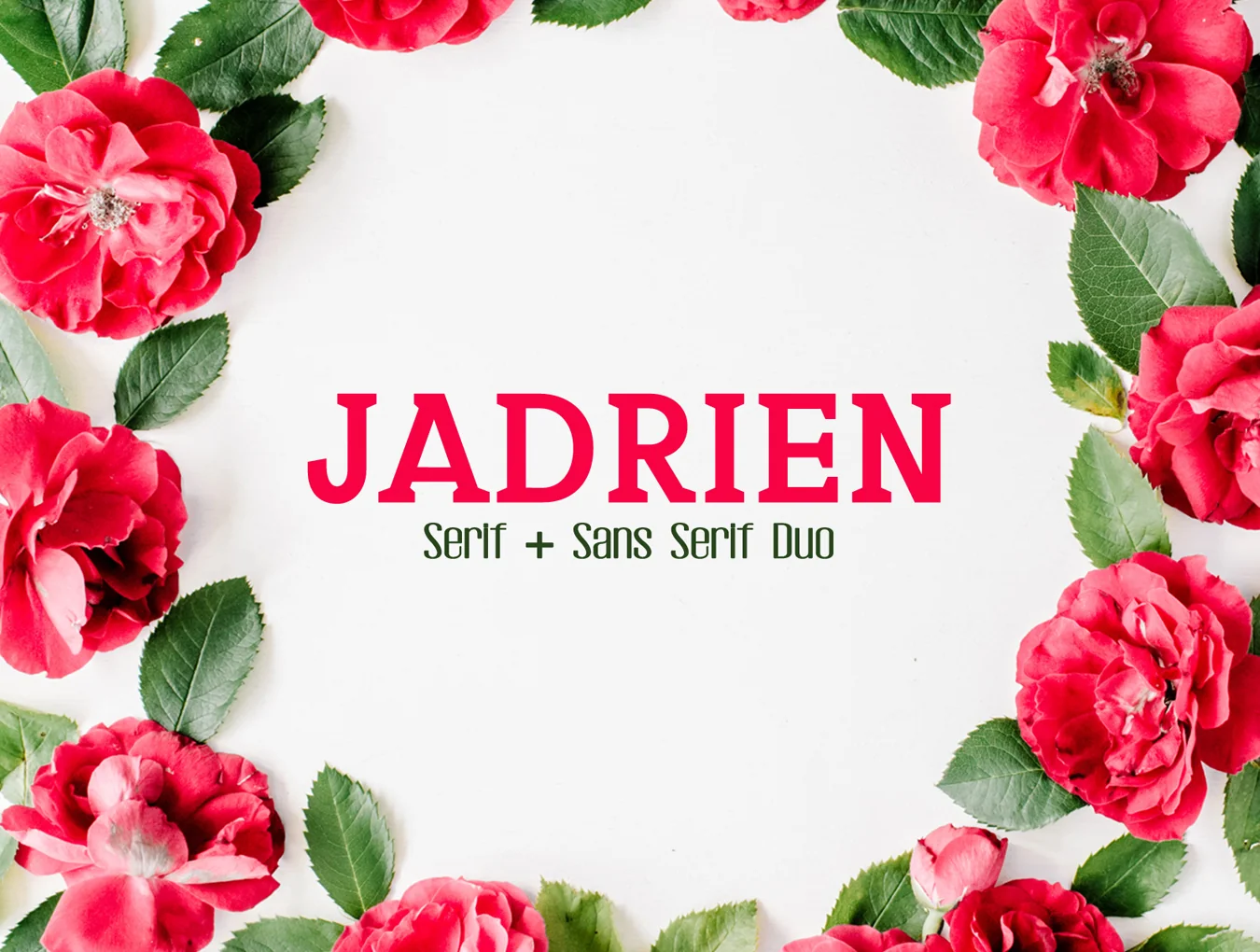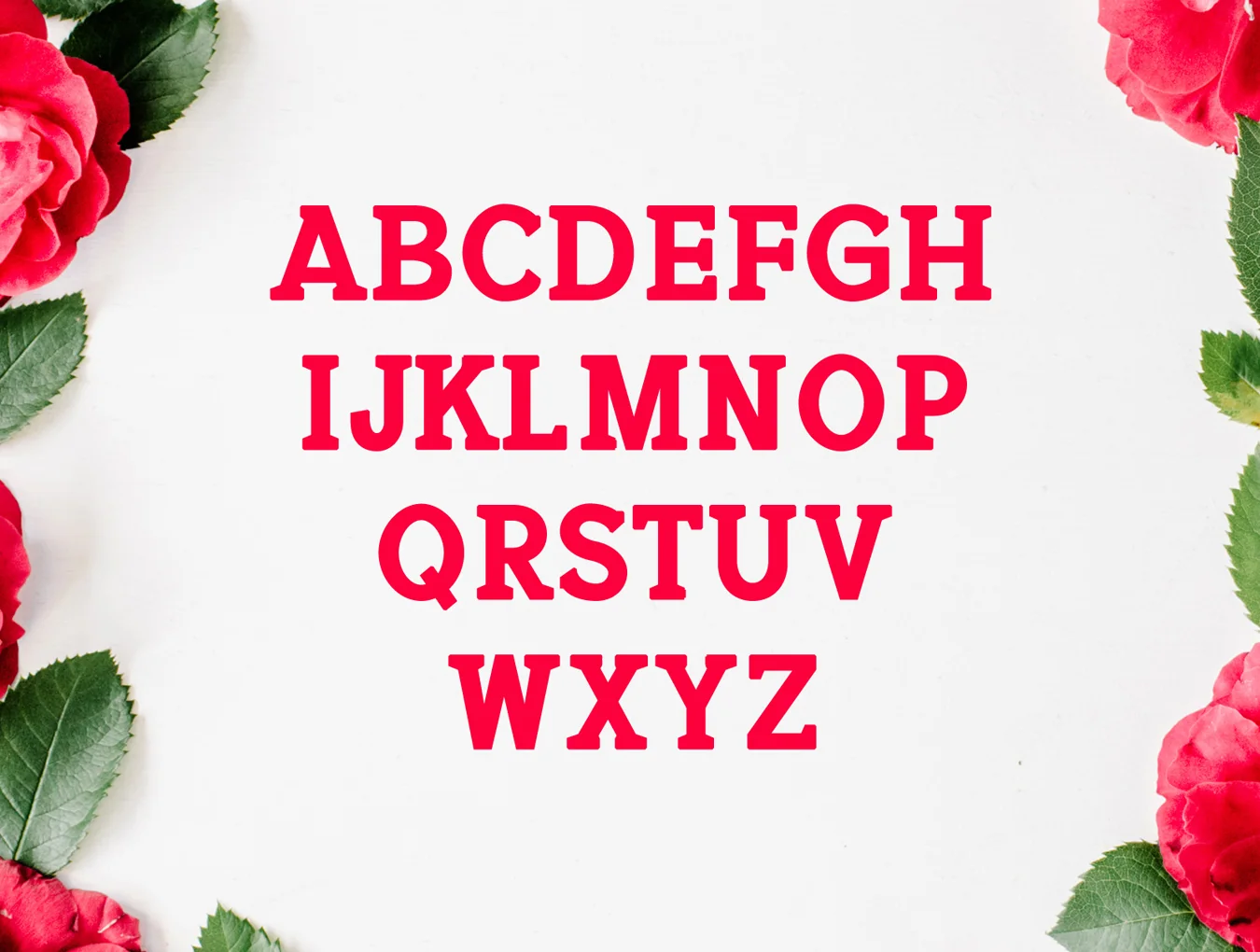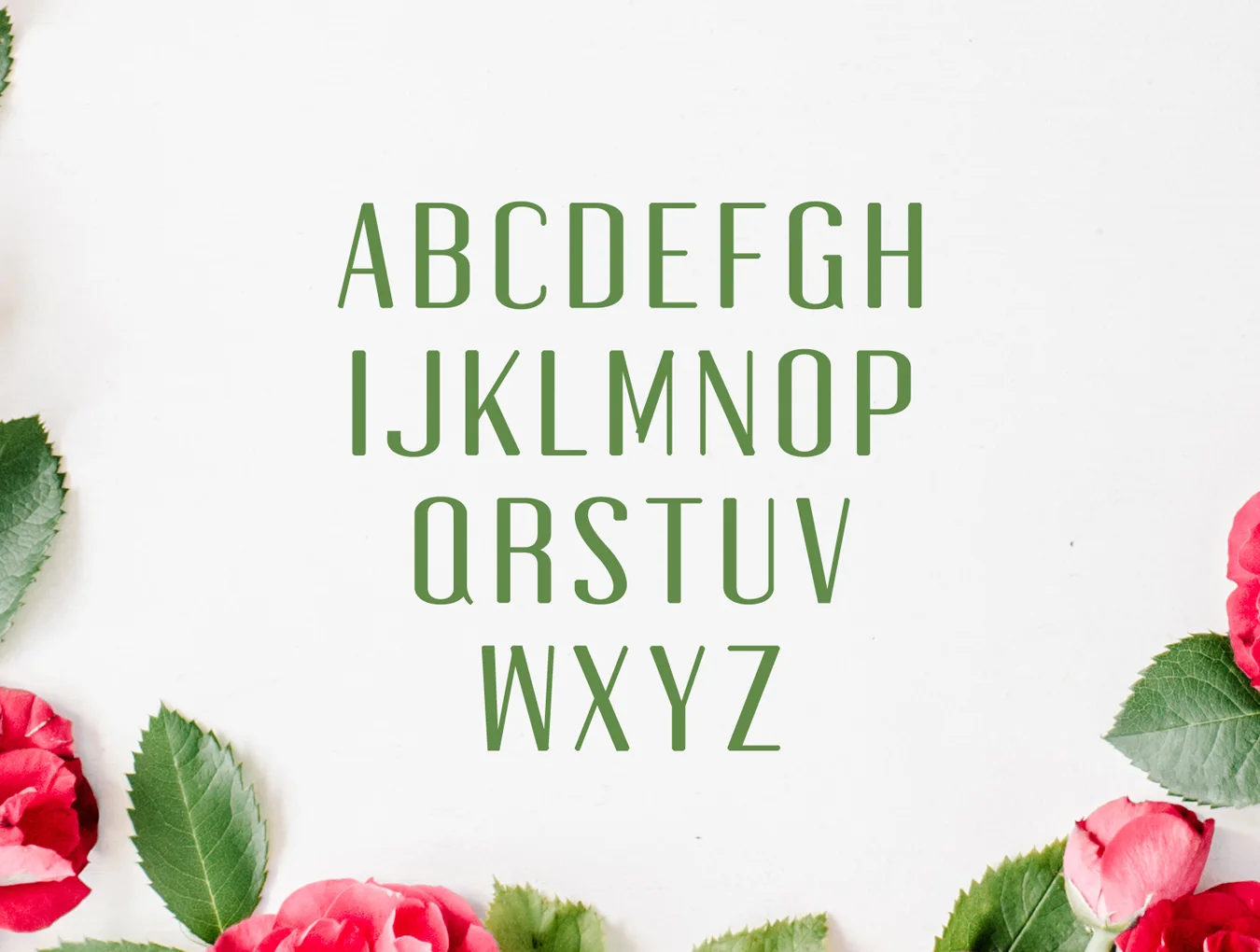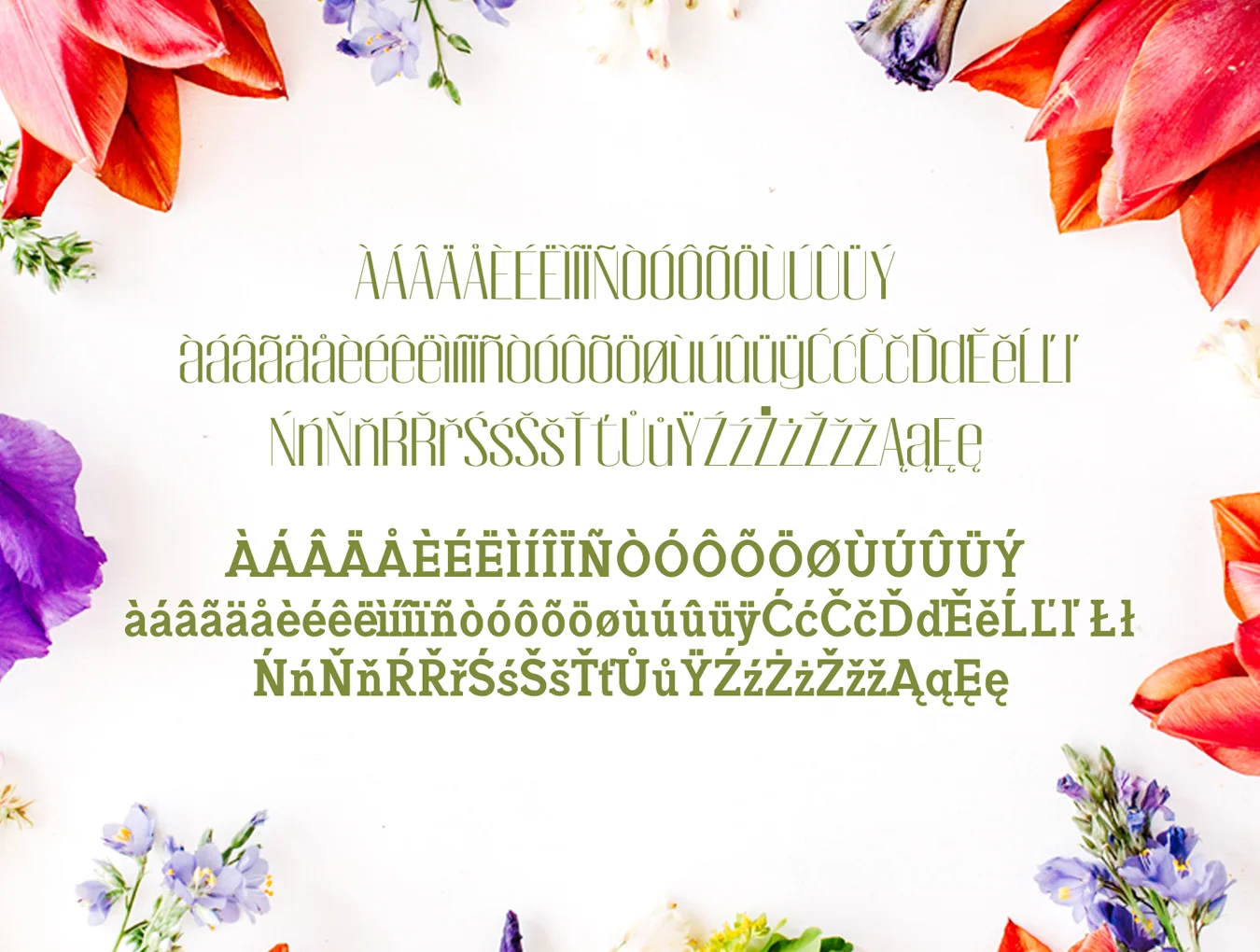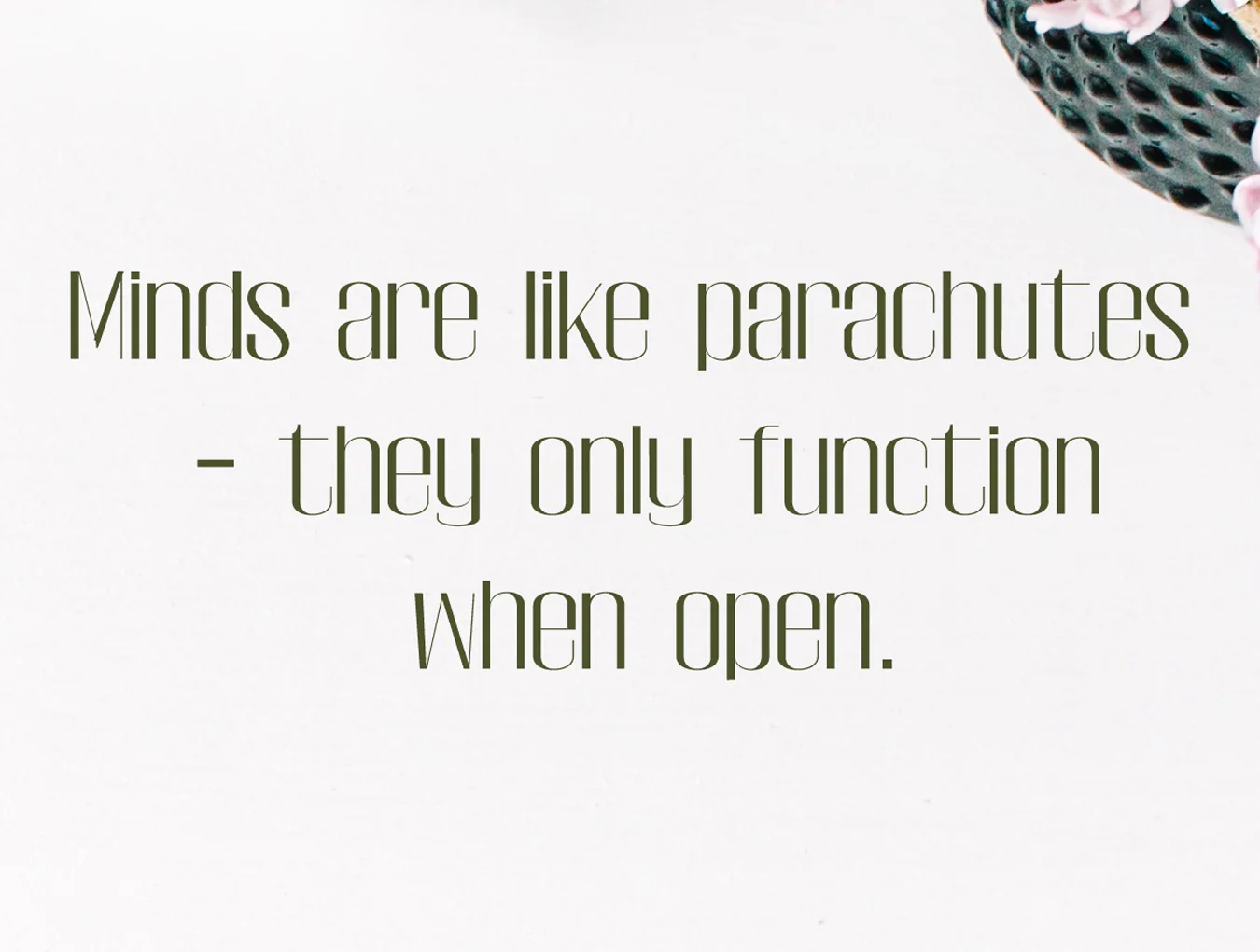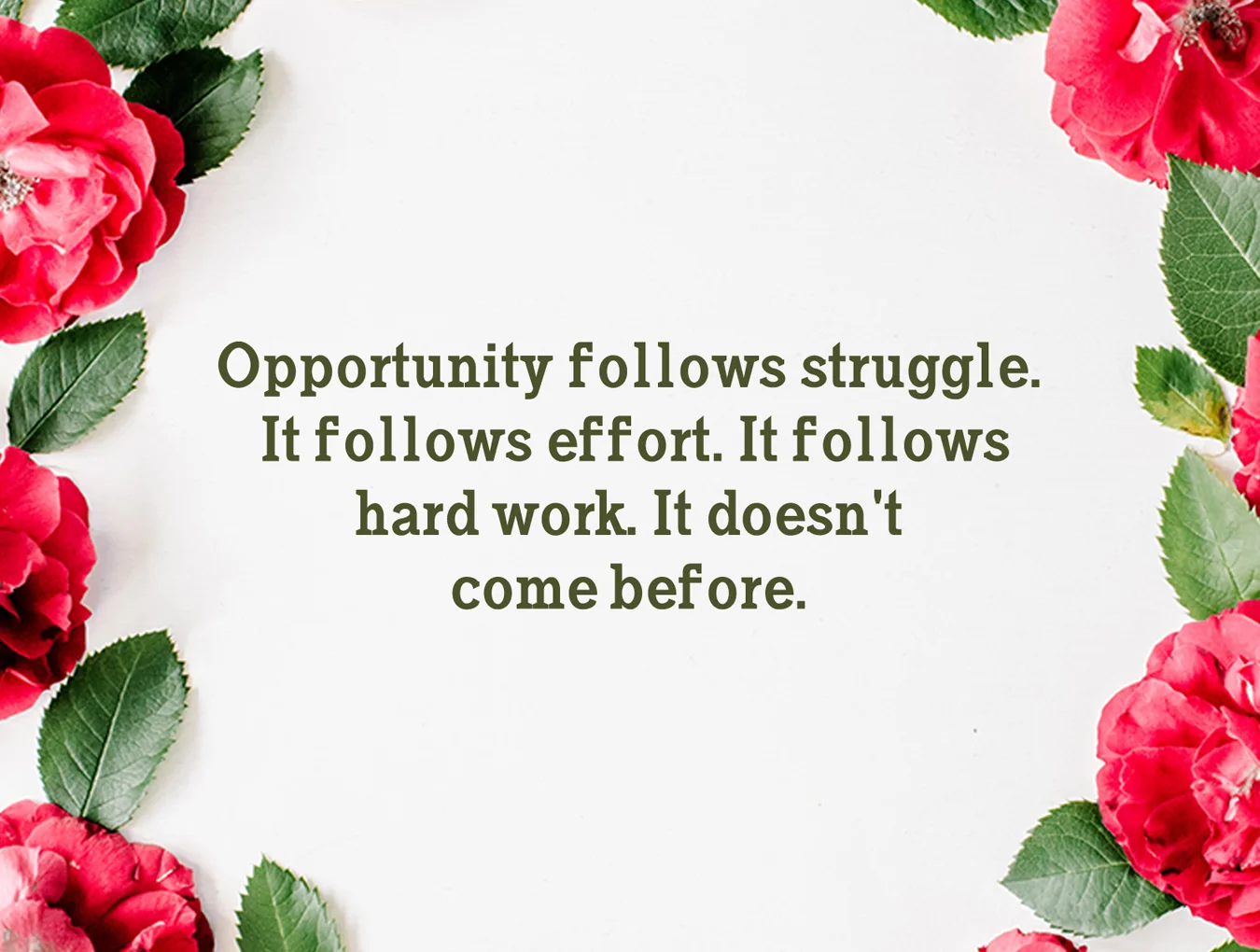
Jadrien Duo Font
Jadrien Serif and Sans Duo Font Pack, 5 Fonts
Serif and sans-serif font styles
294 glyphs in Jadrien and 259 glyphs in Evina
Jadrien includes Regular and Light
Jadrien Serif + Sans Serif Duo Font Family Pack is a striking typeface set designed to add impact to your work. Ideal for logos, headlines, websites, branding, wedding invitations, business cards, quotes, T-shirts, merchandise, social posts, packaging, and more. Includes uppercase, lowercase, numbers, punctuation, and multilingual characters.